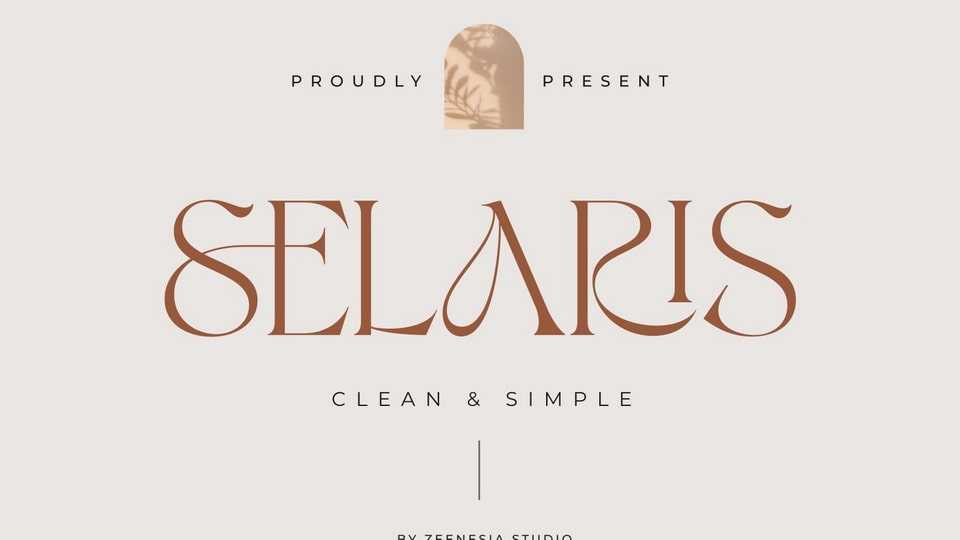
Download Selaris font, a beautiful and sophisticated serif typeface created with a romantic and lovely look. Whether you’re using it for crafts, digital design, presentations, or making greeting cards, Selaris font has the potential to become your favorite.
Designer: Zeenesia Studio